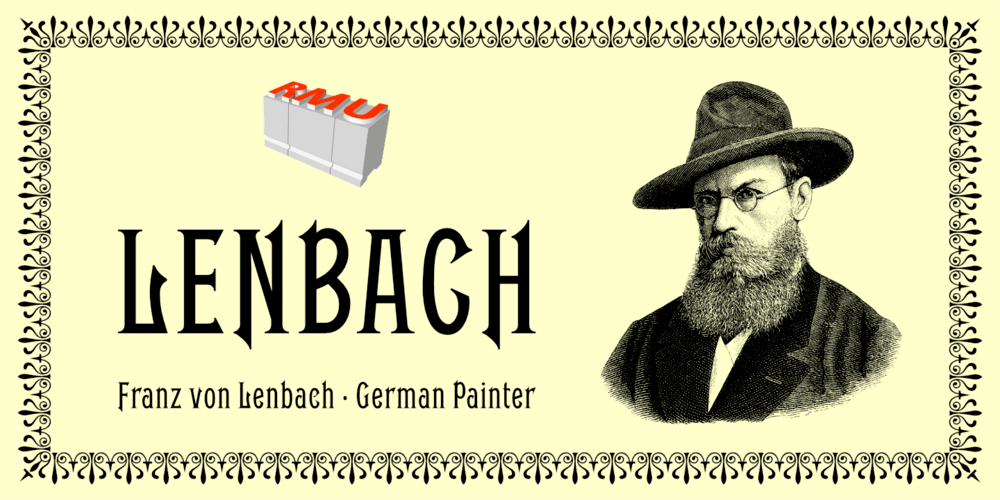
Lenbach Font Family was designed by Ralph M. Unger and published by RMU. Lenbach contains 1 styles and family package options. ‘Lenbach’ is a revival which was inspired by a late-19th century German font design. It comes with both Western and Central European characters, as well as Baltic, Romanian and Turkish characters.To get access to all ligatures, it is recommended to activate both Standard and Discretionary Ligatures.